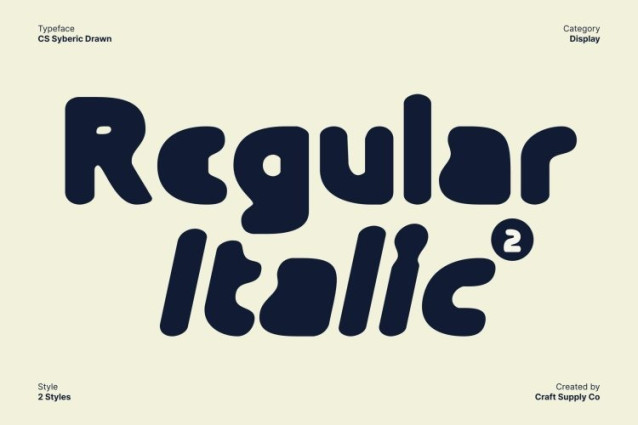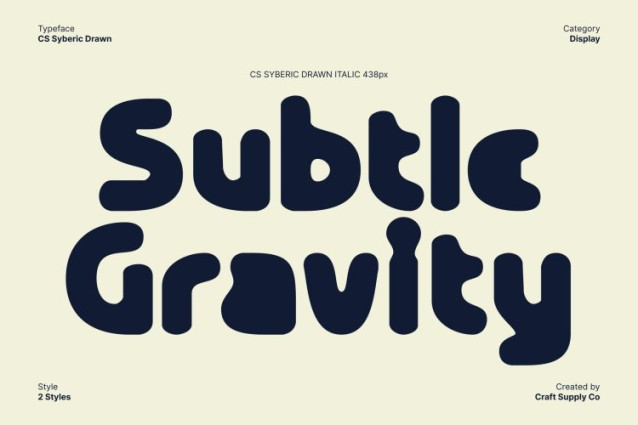
CS Syberic Drawn Font This is a modern sans serif font built from bold, geometric, and techno-inspired shapes. Its clean construction and futuristic structure create a strong digital presence that feels forward-thinking and innovative. Designed to reflect modern technology and contemporary visual culture, this font delivers an energetic and eye-catching look that stands out instantly.
Bold Geometry for Strong Visual Impact
With sharp angles, solid strokes, and precise proportions, offers excellent clarity while maintaining a powerful aesthetic. The geometric forms give the font a structured, confident feel, making it ideal for high-impact designs that require modern strength and visual authority. Its bold appearance ensures readability while adding a dynamic edge.
Hand-Drawn Texture for Artistic Depth
Enhanced by a drawn effect, gains a unique artistic texture that softens its clean, futuristic base. Subtle imperfections and handcrafted details introduce warmth and personality, balancing the rigid geometry with expressive character. This combination creates a distinctive blend of technology and creativity.
Perfect for Modern and Creative Applications
This font works beautifully for posters, logos, branding, digital visuals, and experimental layouts. Whether used for tech branding, event promotions, or contemporary design projects, this font delivers modern energy, visual impact, and a creative handcrafted touch that makes every design feel alive and memorable.